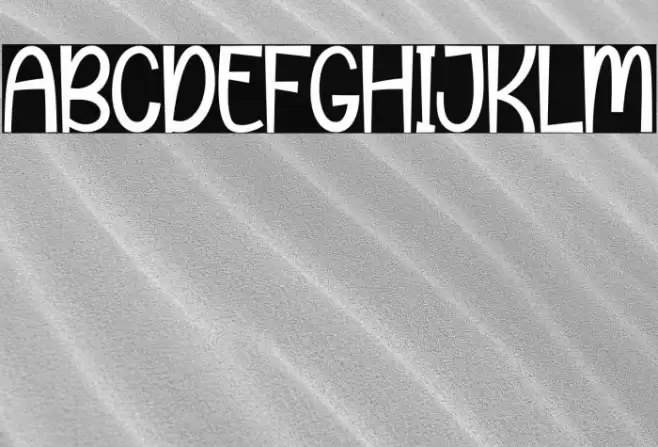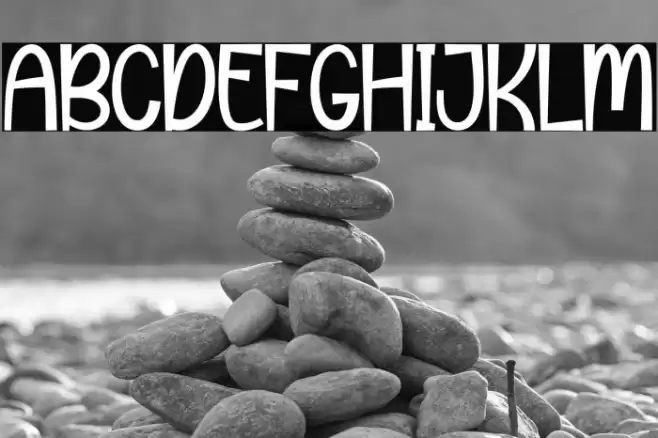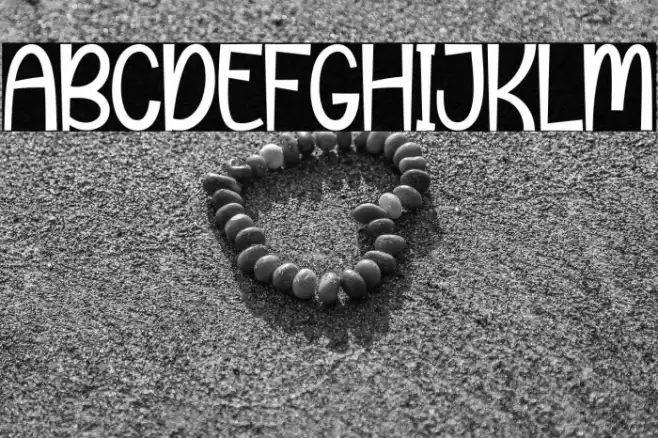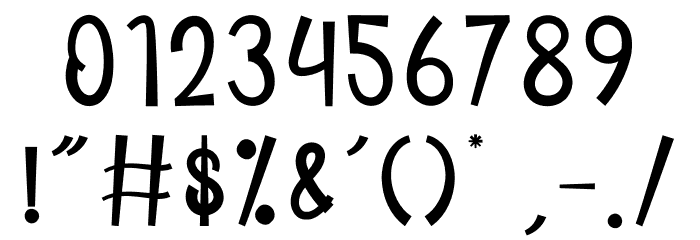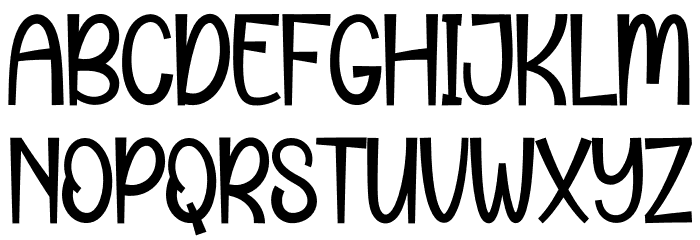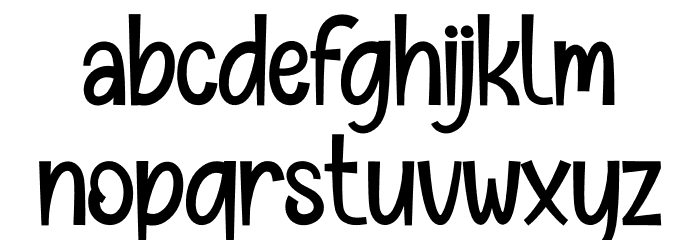
Love Samantha Font
Love Samantha Description
A playful and whimsical font with a handwritten style, featuring tall, narrow letters with a slight slant and rounded edges.
Playful handwritten font with tall, narrow letters from Valentine's Day fonts.
- Font: Love Samantha
- Proposed Projects: Greeting cards, children's books, playful branding.
- Width: Condensed
- Overall Style: Playful